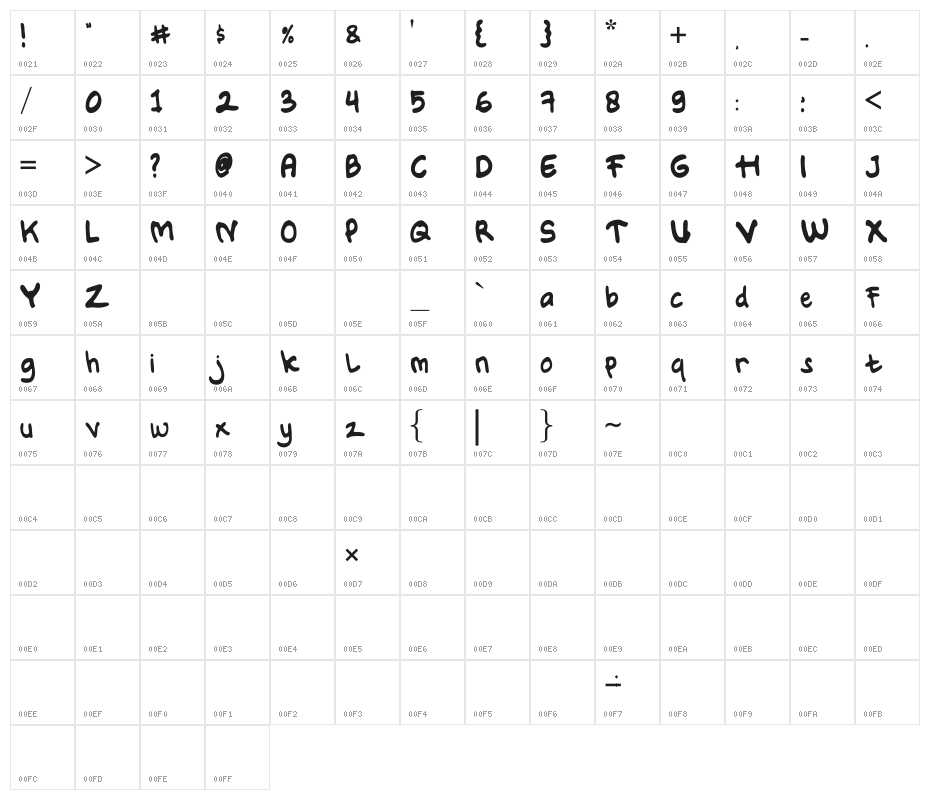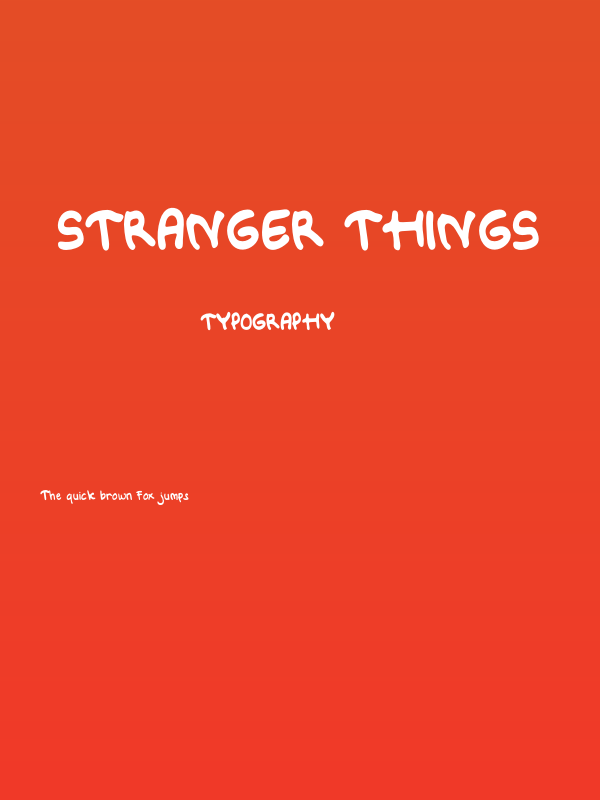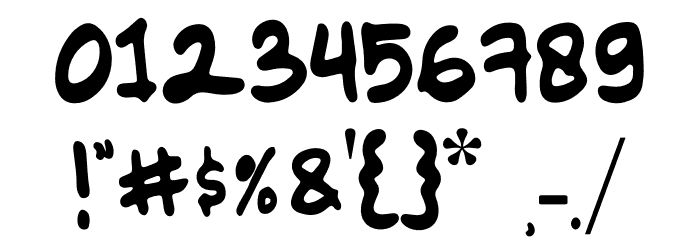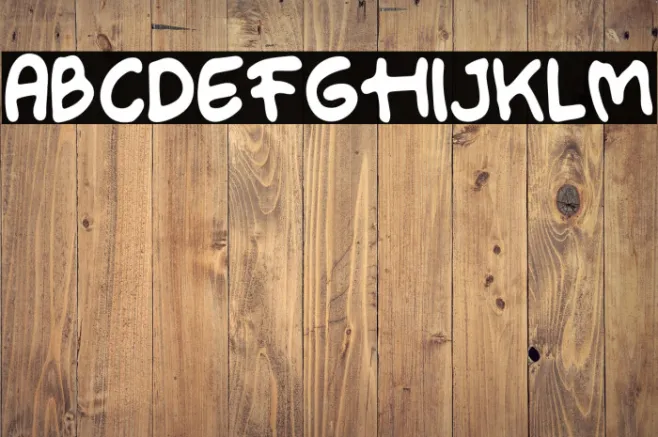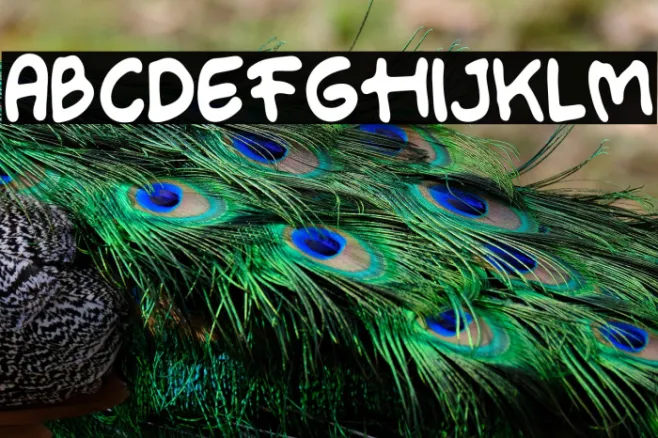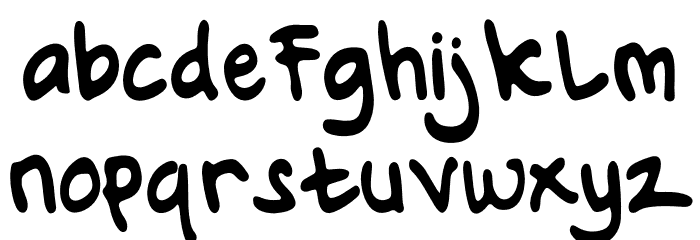
Stranger things Font
Stranger things Description
This font features a playful and informal style, characterized by its rounded and slightly irregular letterforms. The strokes are bold and consistent, giving it a strong presence on the page. The uppercase and lowercase letters maintain a cohesive look, with a slight tilt that adds to its casual appearance. Numbers and special characters are designed to match the overall aesthetic, making it versatile for various uses. The font's hand-drawn quality makes it ideal for projects that require a personal touch or a fun, approachable vibe.
| Use Case | Headlines, Logos, Casual Text |
| Proposed Projects | Ideal for children's books, comic strips, playful branding, and casual invitations. |